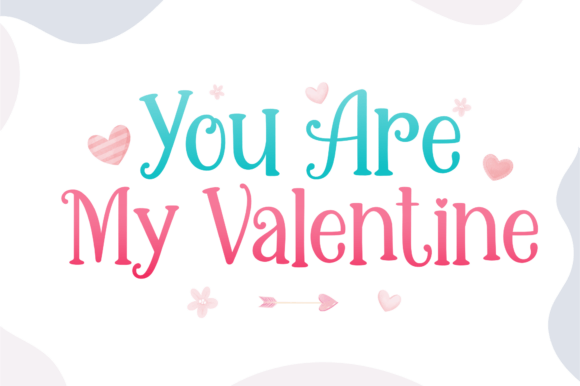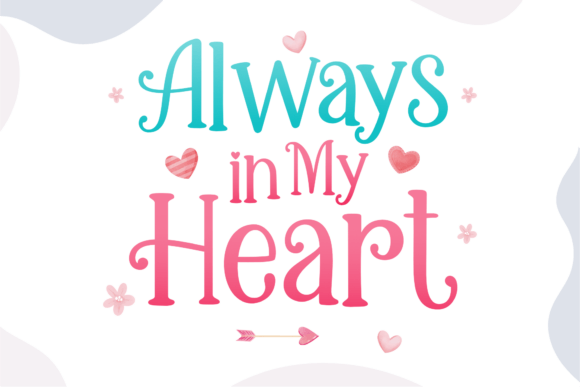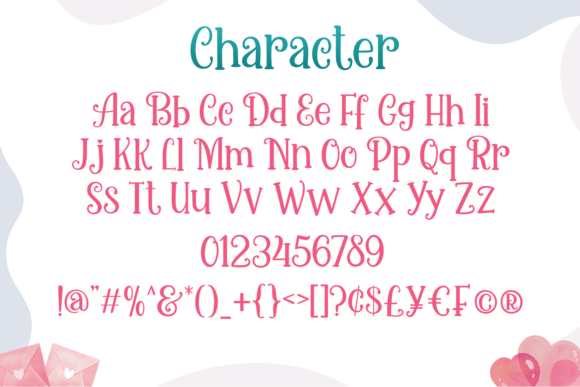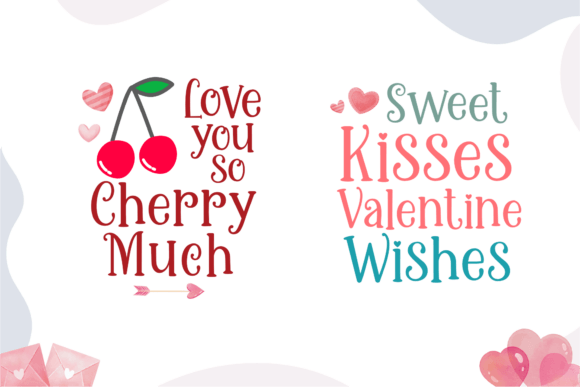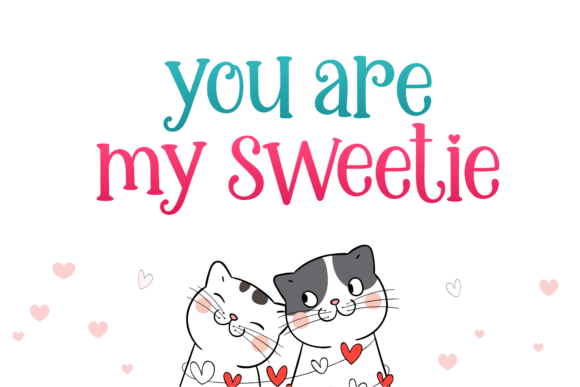
The Sweetest Font You’ll Ever Meet: Bunny Sweety
I’ll never forget the time I was working on a children’s book project, and I just couldn’t find the right font to bring the story to life. The client wanted something playful, yet elegant, and I was determined to deliver. That’s when I stumbled upon Bunny Sweety, a charming display font that instantly captured the whimsical feel I was looking for. In this article, I’ll share my experience with Bunny Sweety, and explore its features, uses, and alternatives.
An Honest Review of Bunny Sweety
- Soft, rounded curves that evoke feelings of joy and happiness
- Decorative elements that add a touch of whimsy to any project
- Perfect for children’s books, branding, invitations, and more
- Easy to read and works well in large and small sizes
- A versatile font that can be used for both digital and print projects
While Bunny Sweety is an amazing font, there are a few things to keep in mind:
- It may not be the best choice for very formal or professional projects 🤔
- Some of the decorative elements can be a bit finicky when used in certain sizes or combinations
- Experiment with OpenType features, such as glyphs and stylistic alternates, to add more personality to your text
- Explore the font’s OpenType features, such as ligatures and stylistic sets, to add more visual interest
The Backstory of Bunny Sweety
Bunny Sweety was designed with one goal in mind: to bring a smile to your face. The font’s creator, a talented type designer, was inspired by the joy and wonder of childhood. With its soft curves and decorative elements, Bunny Sweety is the perfect font for anyone looking to add a touch of sweetness to their project.
Q: What is Bunny Sweety’s personality?
A: Bunny Sweety is a playful, charming font with a whimsical feel. It’s perfect for projects that need a touch of sweetness and joy.
Q: Is Bunny Sweety easy to read?
A: Yes, Bunny Sweety is designed to be easy to read, even in small sizes. Its clear, rounded curves make it perfect for body text and headings.